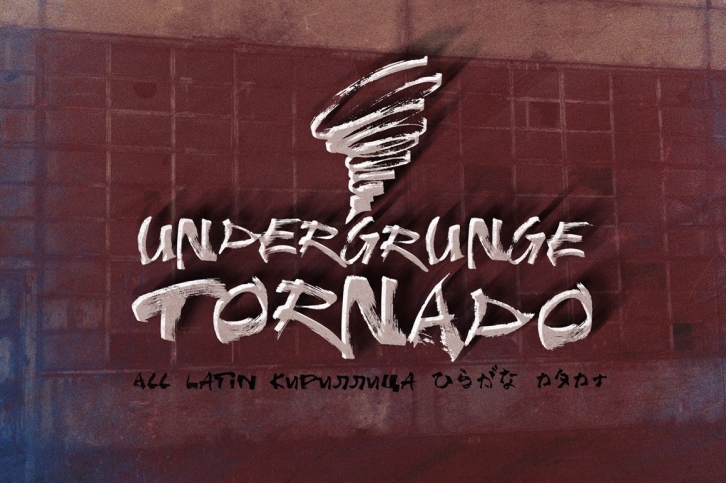
This is another grunge style hand drawn font I created with a poster marker. Including all Latin language extensions, Cyrillic and Japanese Hiragana and Katakana. It's an all caps font. I drew a couple versions of each letter then picked one of them for lower and one for uppercase so they can be combined for better flow and more even more natural look. Enjoy & Happy designing!